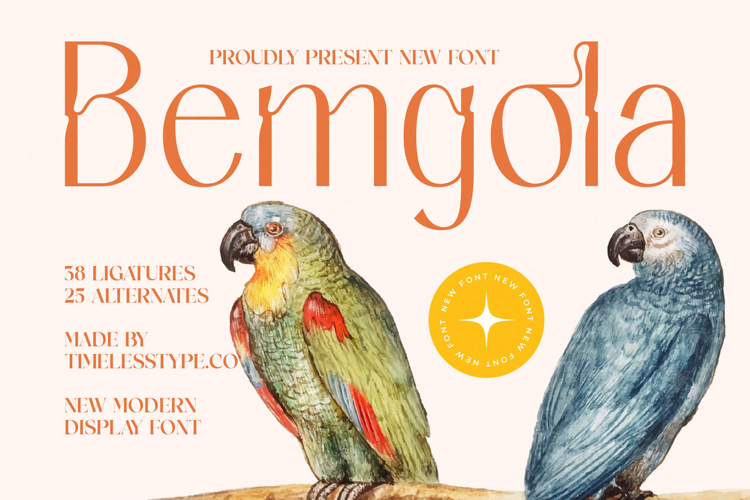
Bemgola - Modern Display Font
Elevate your designs with unparalleled elegance. Introducing Bemgola - Modern Display Font, a truly captivating typeface designed to infuse your projects with an air of sophisticated charm and distinctive personality. Its unique, flowing lines and artfully crafted curves create an immediate visual impact, establishing a memorable aesthetic. This font transcends ordinary typography, making every headline and logo an unforgettable statement.
Unleash extraordinary creative potential. Discover the immense design versatility offered by Bemgola - Modern Display Font, meticulously crafted with an abundance of features to inspire. With an impressive collection of 38 ligatures and 25 alternates, designers gain unparalleled freedom to sculpt truly original compositions. These rich stylistic options ensure your text is not just read, but deeply felt, adding layers of expressive depth to any project.